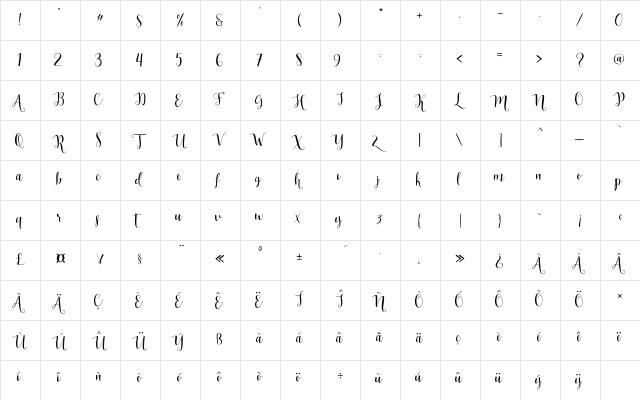
Indah Script Regular
| Foundry | Syafrizal/Khurasan |
| Designer | Syafrizal/Khurasan |
Design Context for Indah Script Typeface
Indah Script brings a calligraphic fluidity to the page — its connecting strokes and expressive curves give it an unmistakably human quality.
Font Pairing: Combine Indah Script with a simple geometric sans for maximum contrast — the tension between flowing curves and clean structure is a classic typographic pairing.
Pro Tip: Use Indah Script for short runs of text — names, titles, or taglines. Extended body copy in script faces tires the eye quickly.